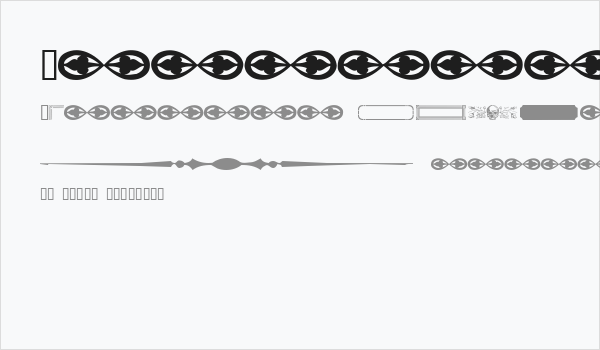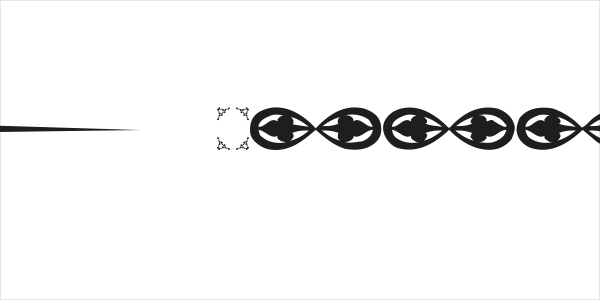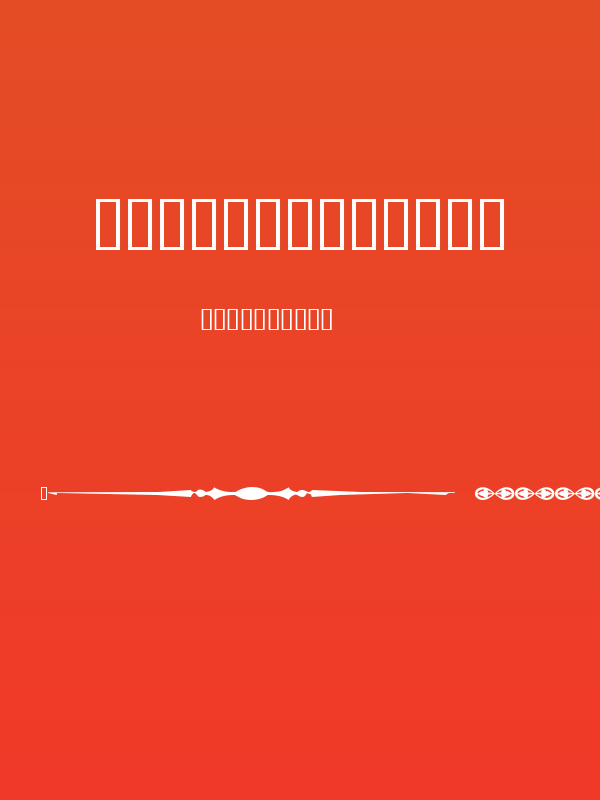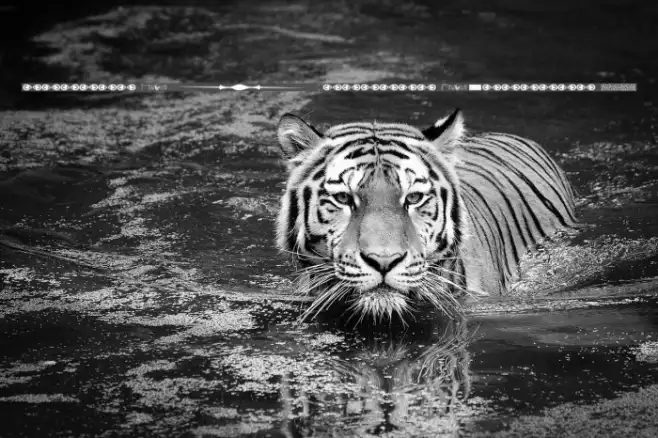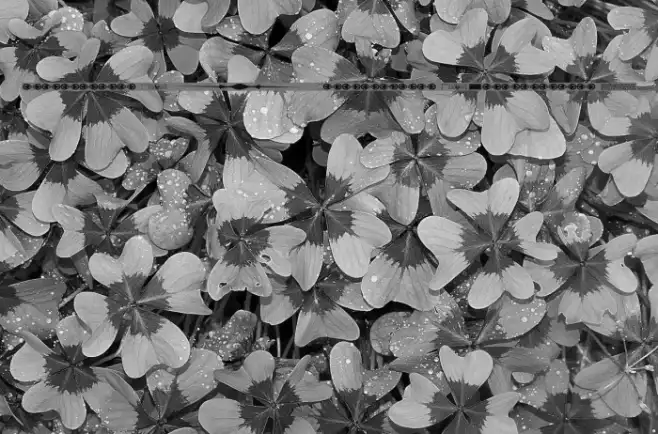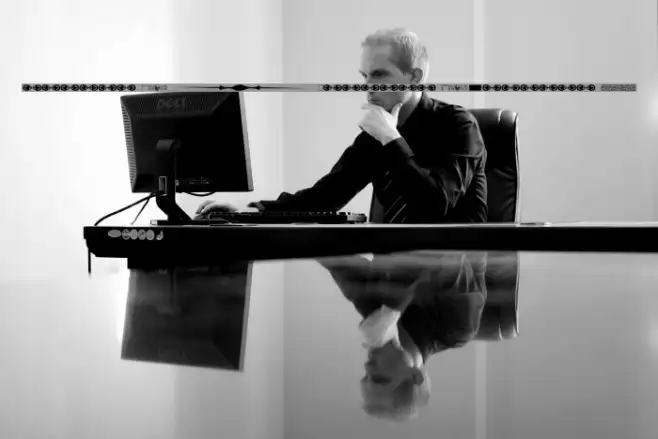
DesignerMixed Font
DesignerMixed Description
This image does not display a valid font; instead, it contains a series of rectangular glyphs or placeholder boxes, along with some decorative line elements and symbols. No readable alphabetic or numeric characters are present.
| Use Case | Decorative borders or dividers, not for text. |
| Proposed Projects | Not suitable for standard text-based projects. |